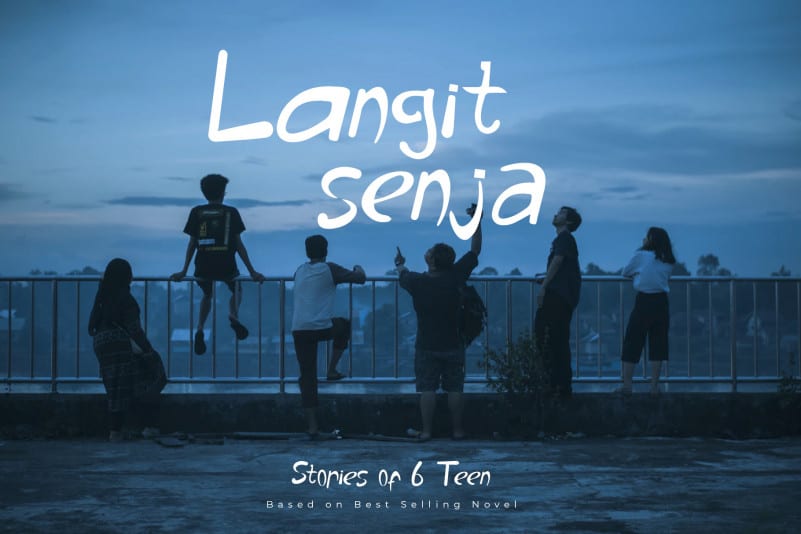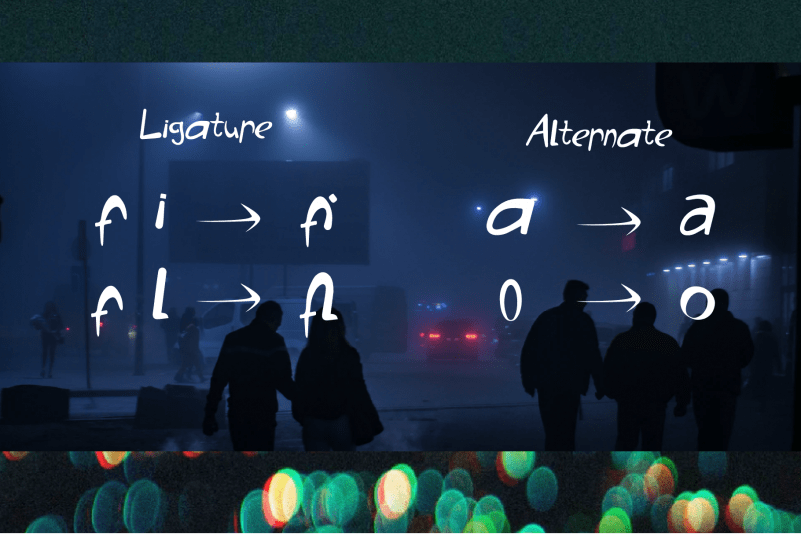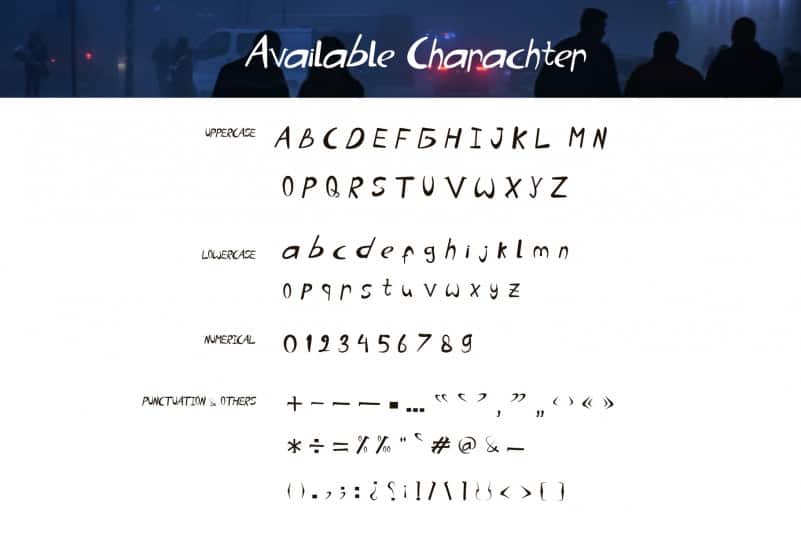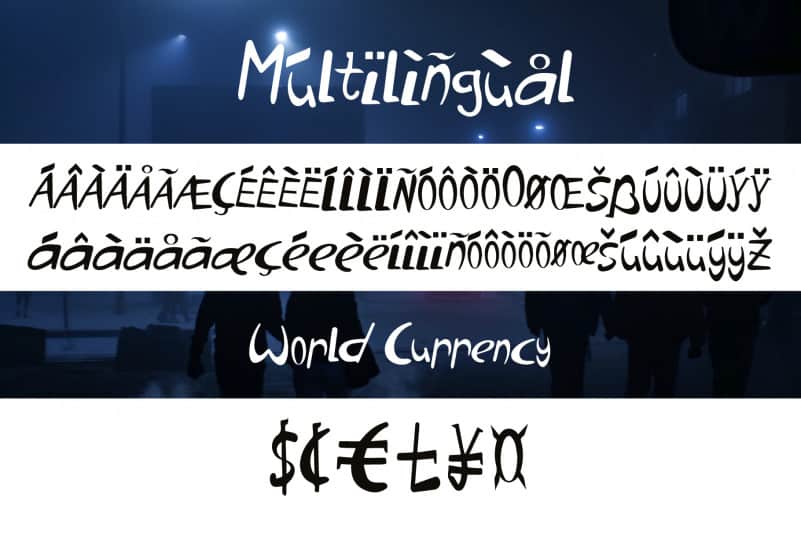
Cinematica Font
Cinematica Font is a font with lively theme. It’s inspired by the therapeutic feeling in every great cinematic moments that we all get after watching a good movie. This font is specially made for you, a Designer who always craves for a sentimental touch in your creative projects.
Cinematica Font is suitable for variety of creative projects such as branding, logos, social media posts, advertisements, and so much more. Let your imagination run free!
It’s a font with lively theme. It’s inspired by the therapeutic feeling in every great cinematic moments that we all get after watching a good movie. This font is specially made for you, a Designer who always craves for a sentimental touch in your creative projects.
It’s suitable for variety of creative projects such as branding, logos, social media posts, advertisements, and so much more. Let your imagination run free!